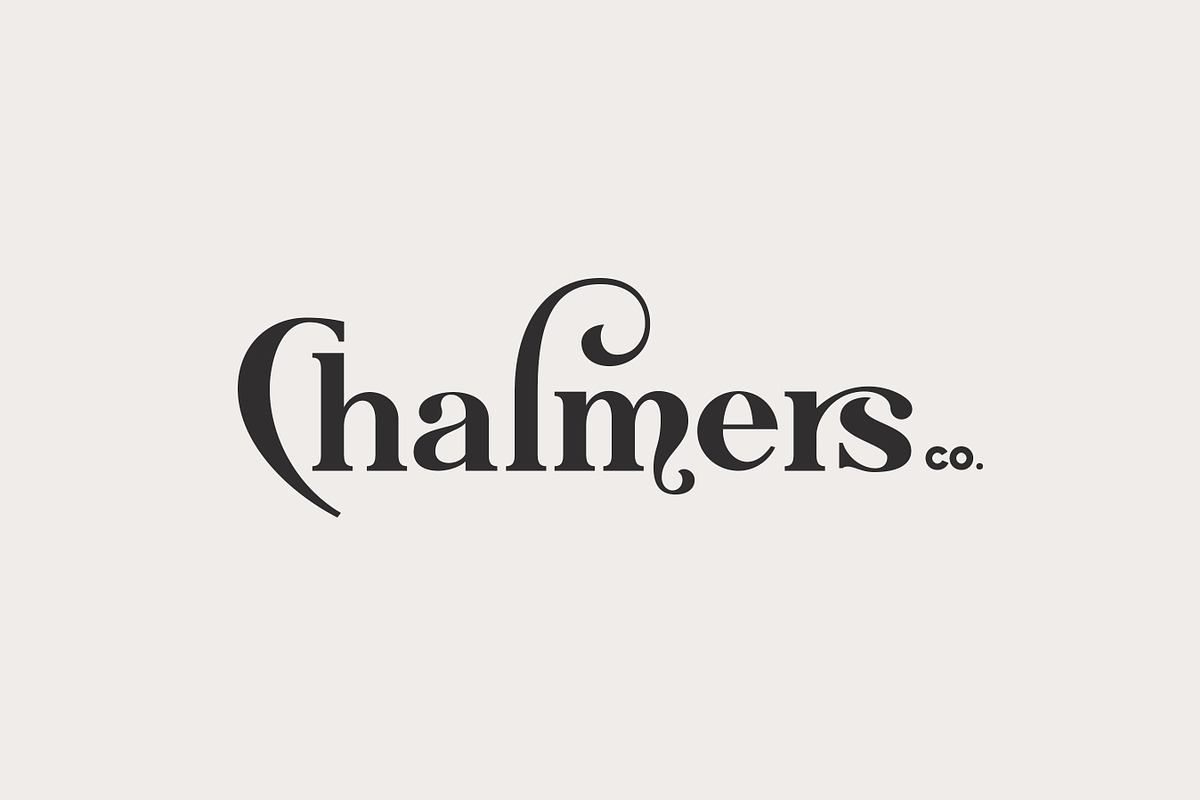
Chalmers Type Font Free Download is a refined and stylish serif typeface that blends classic structure with modern elegance. With its clean lines, balanced proportions, and timeless sophistication, this font is perfect for editorial layouts, brand identities, wedding invitations, and upscale packaging.
Chalmers Type Font Free Download brings a sense of luxury and professionalism to your designs. Whether you're working on high-end fashion branding or crafting a polished portfolio, this typeface delivers clarity, grace, and visual impact across both print and digital formats.
Its versatile character set and elegant flair make it a go-to choice for creatives who appreciate fine typography. Feel free to test it in personal or demo projects to explore its potential, but please remember—a commercial license is required for professional use. Elevate your typography with the understated beauty of Chalmers.